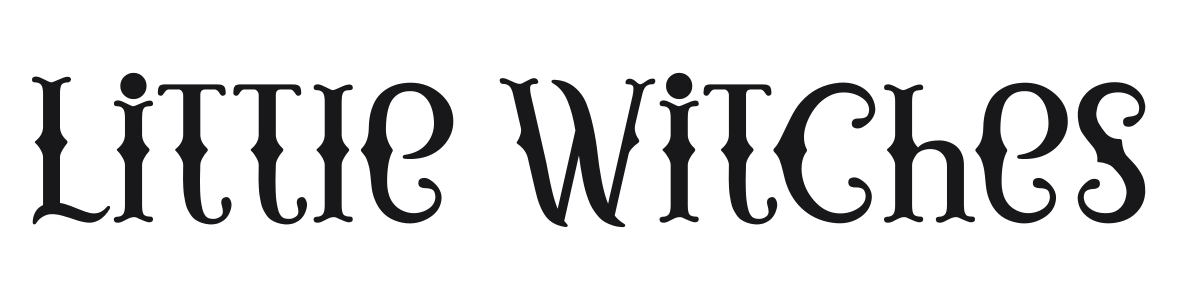
Little Witches
Little Witches is a heavy decorative display font drawing on uncial and medieval traditions to conjure a distinctly witchy, occult atmosphere. Its swelling strokes, rounded ball terminals, and arched letterforms give it an organic handcrafted quality that sits somewhere between old manuscript lettering and modern fantasy branding. Strong at large sizes for posters, book covers, game titles, and Halloween packaging.